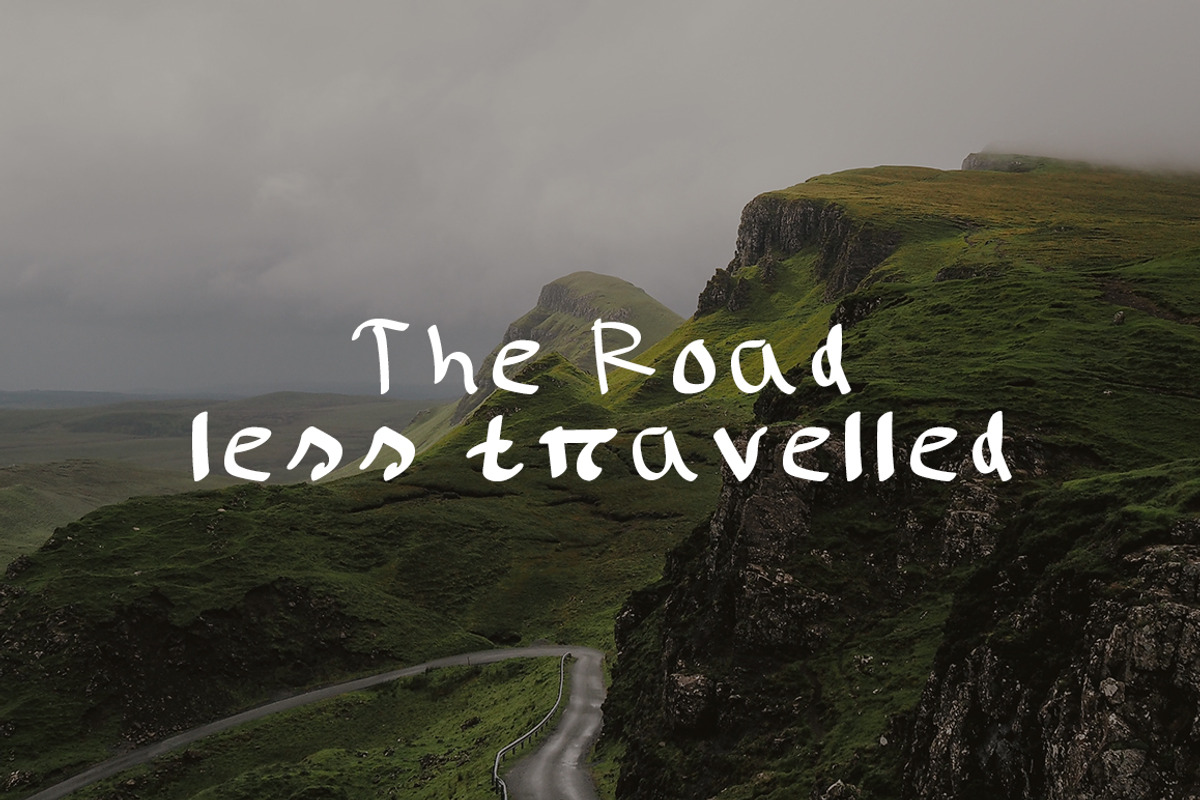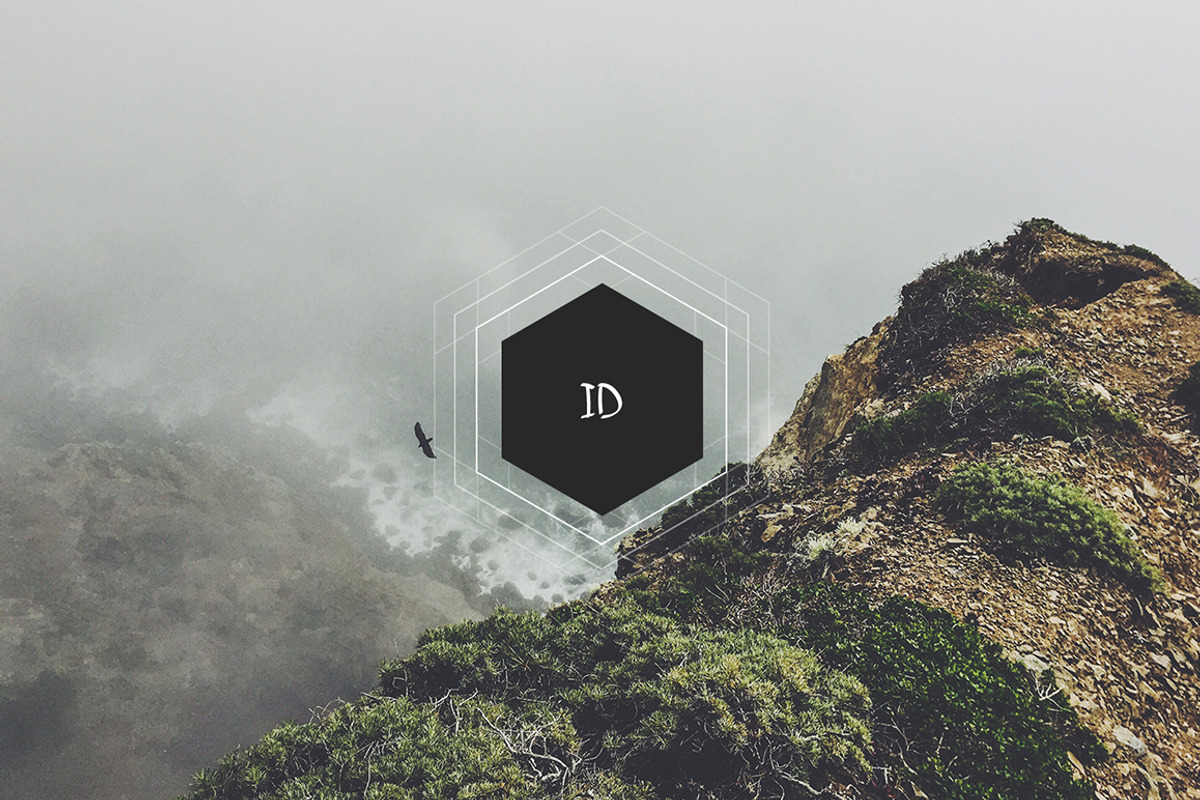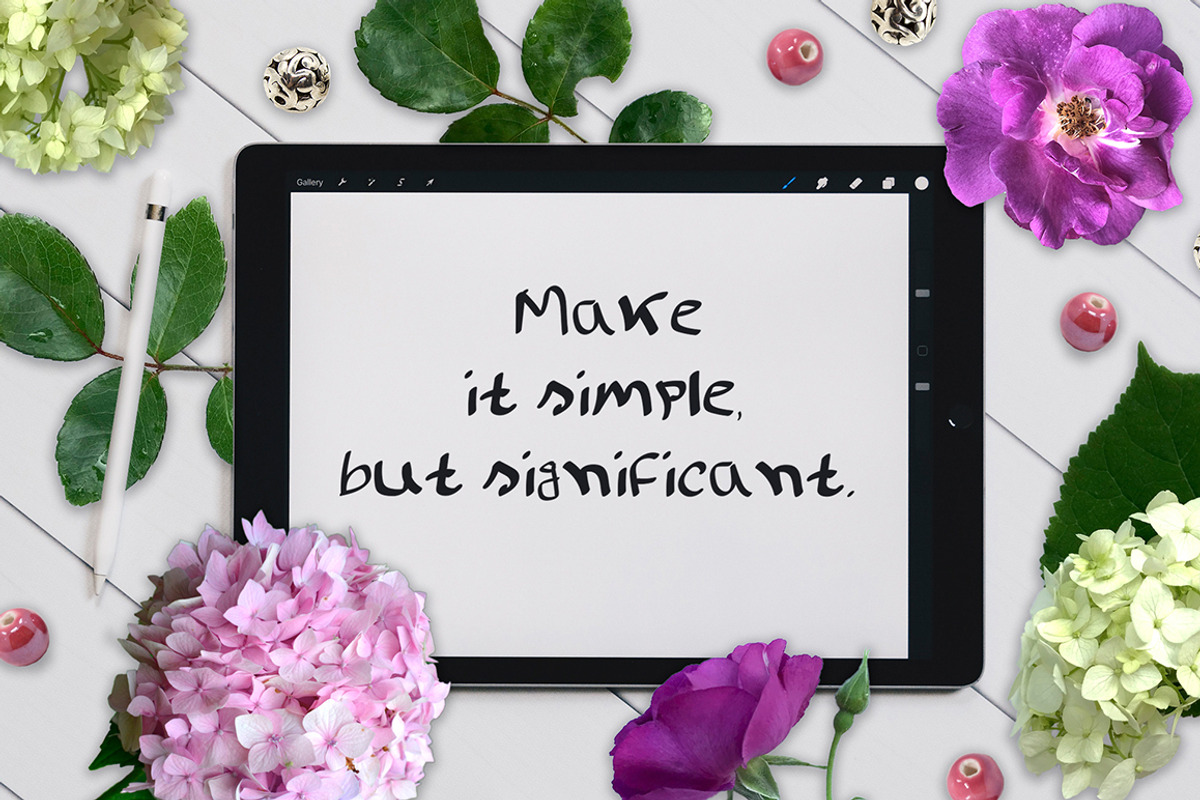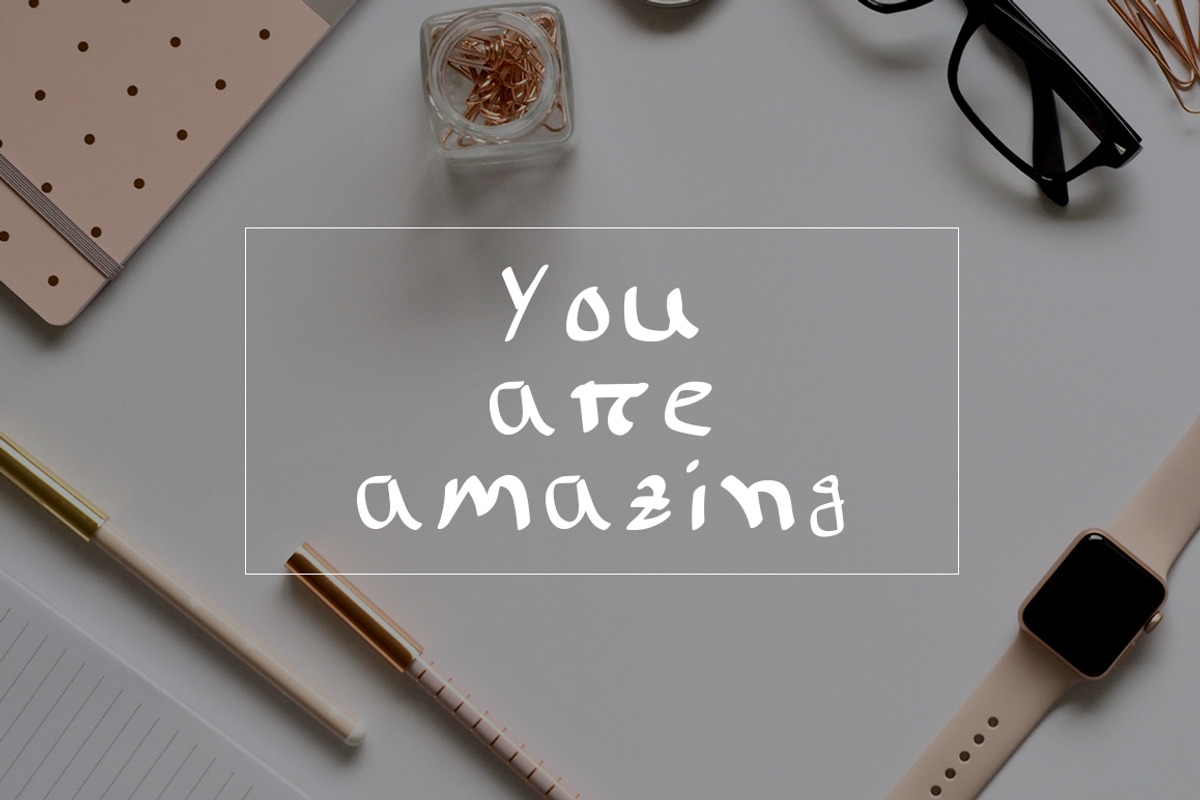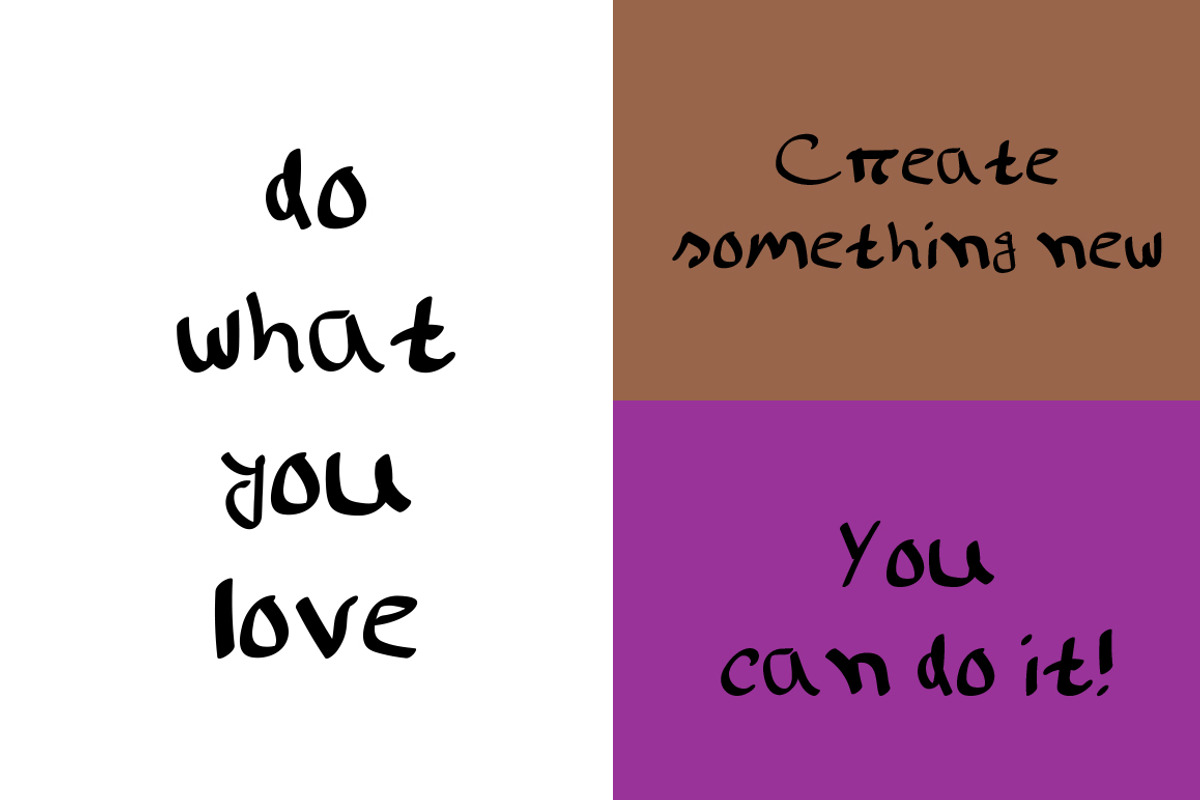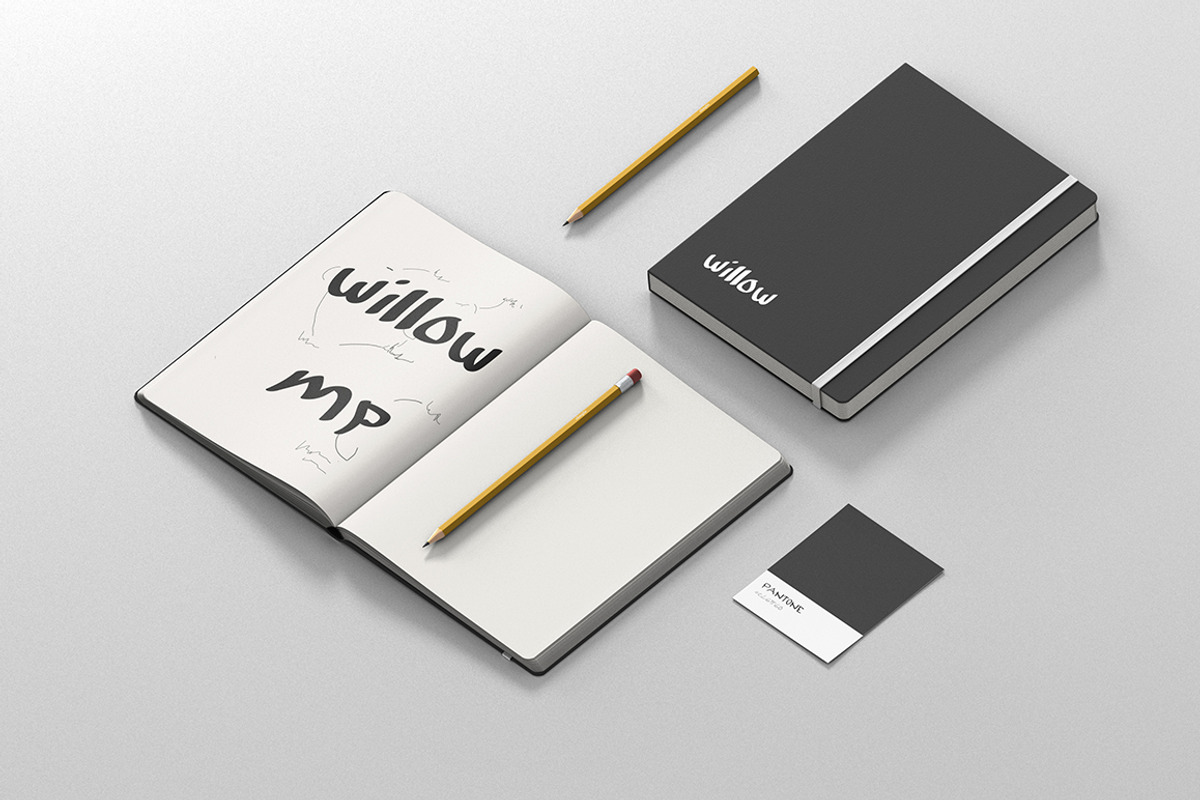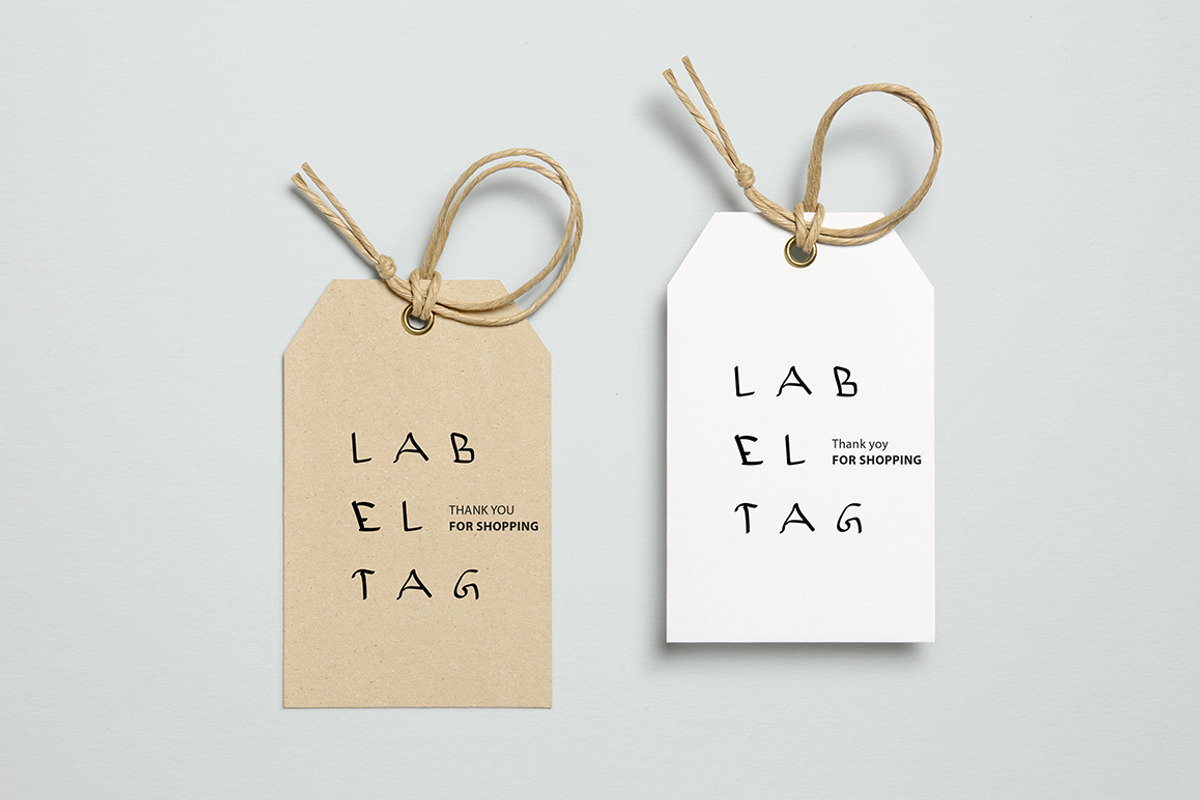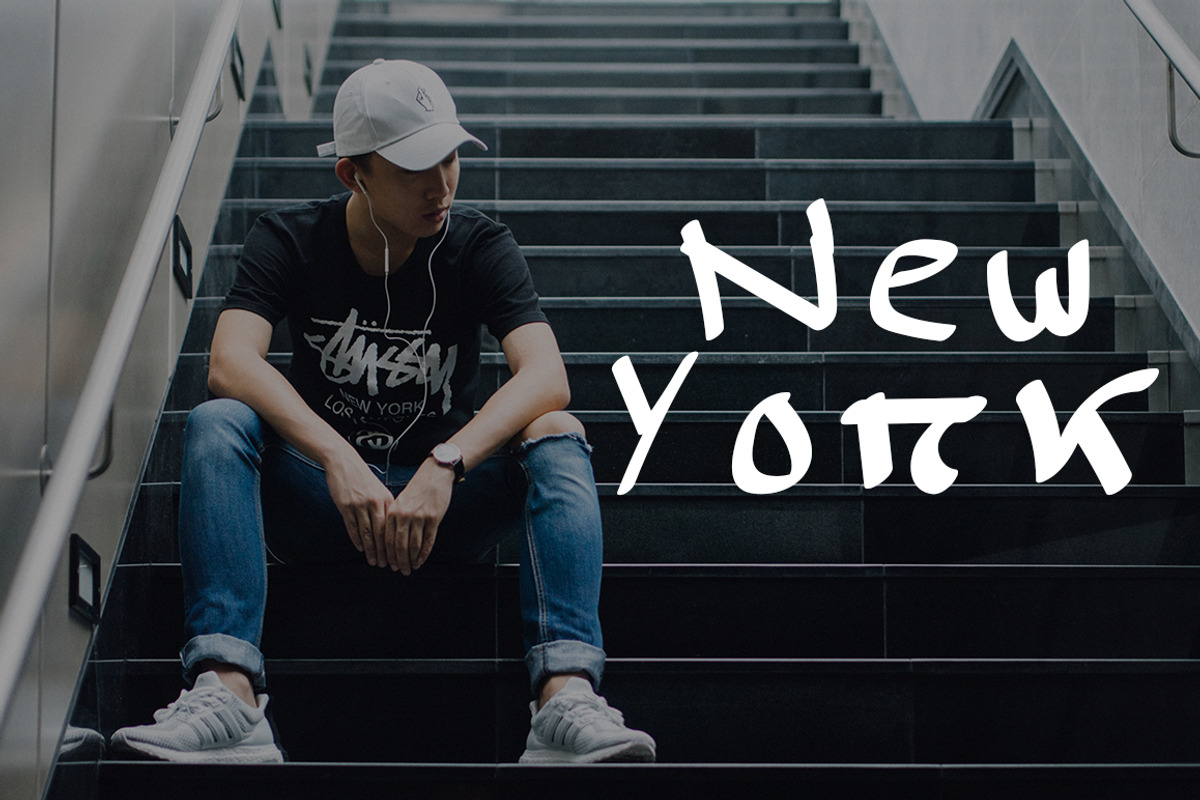
Willow Handwritten Font
Introducing Willow; An authentic & organic hand-drawn display font, crafted using real brushes. This font has been carefully designed to re-create natural handwritten text and includes custom lettering to achieve those free-flowing brush strokes. Willow lends itself perfectly to handwritten quotes, signature-style logos, stylish branding projects, and hand-crafted product & stationery designs.